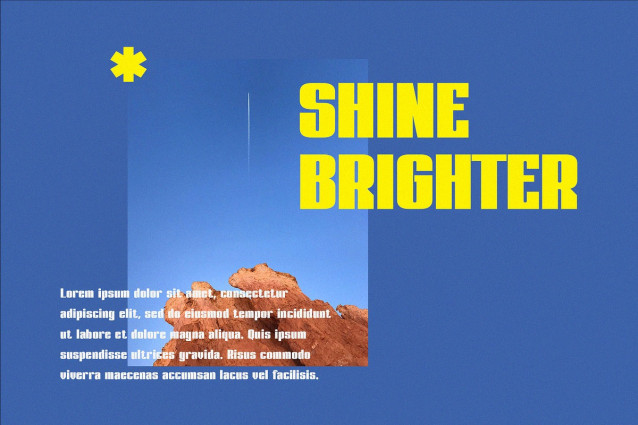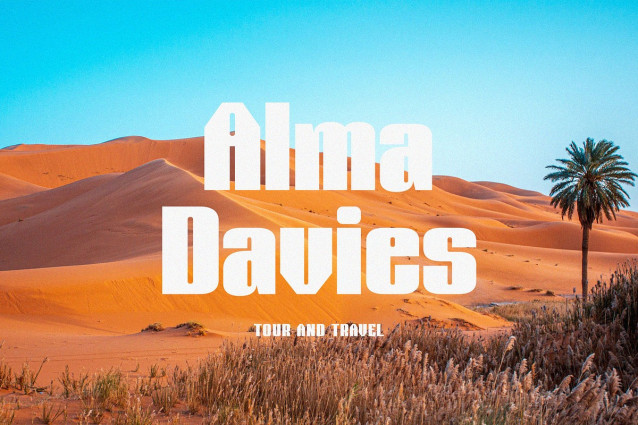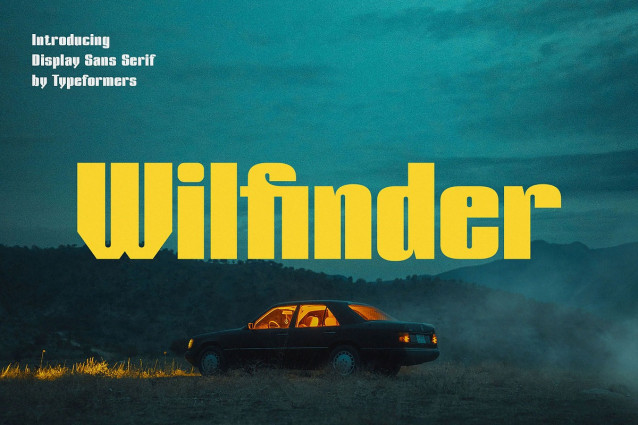
Wilfinder Font
Wilfinder Font – Display Sans Serif is a modern and simple font, best used as a display for headings, logos, branding, magazines, product packaging and invitations.